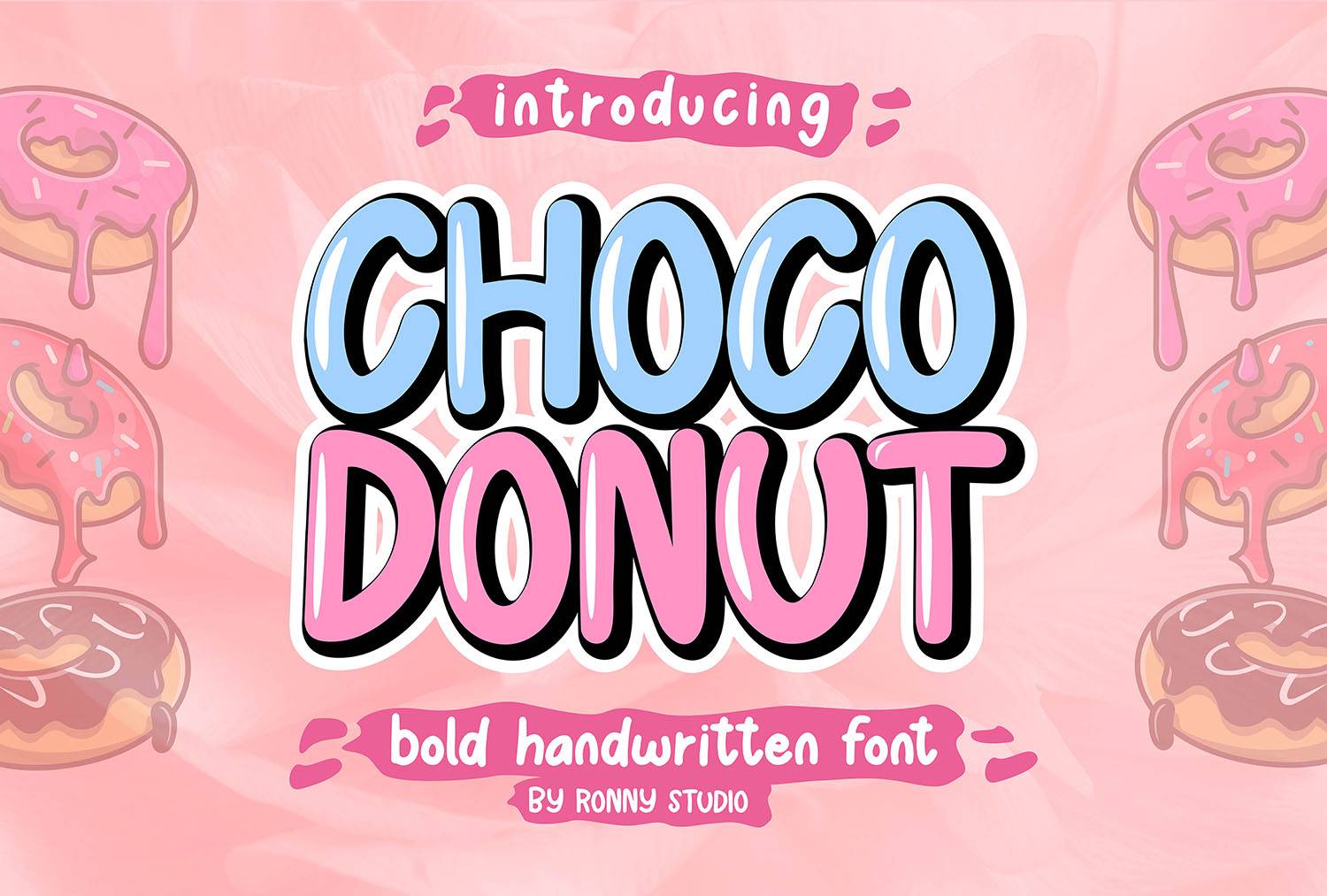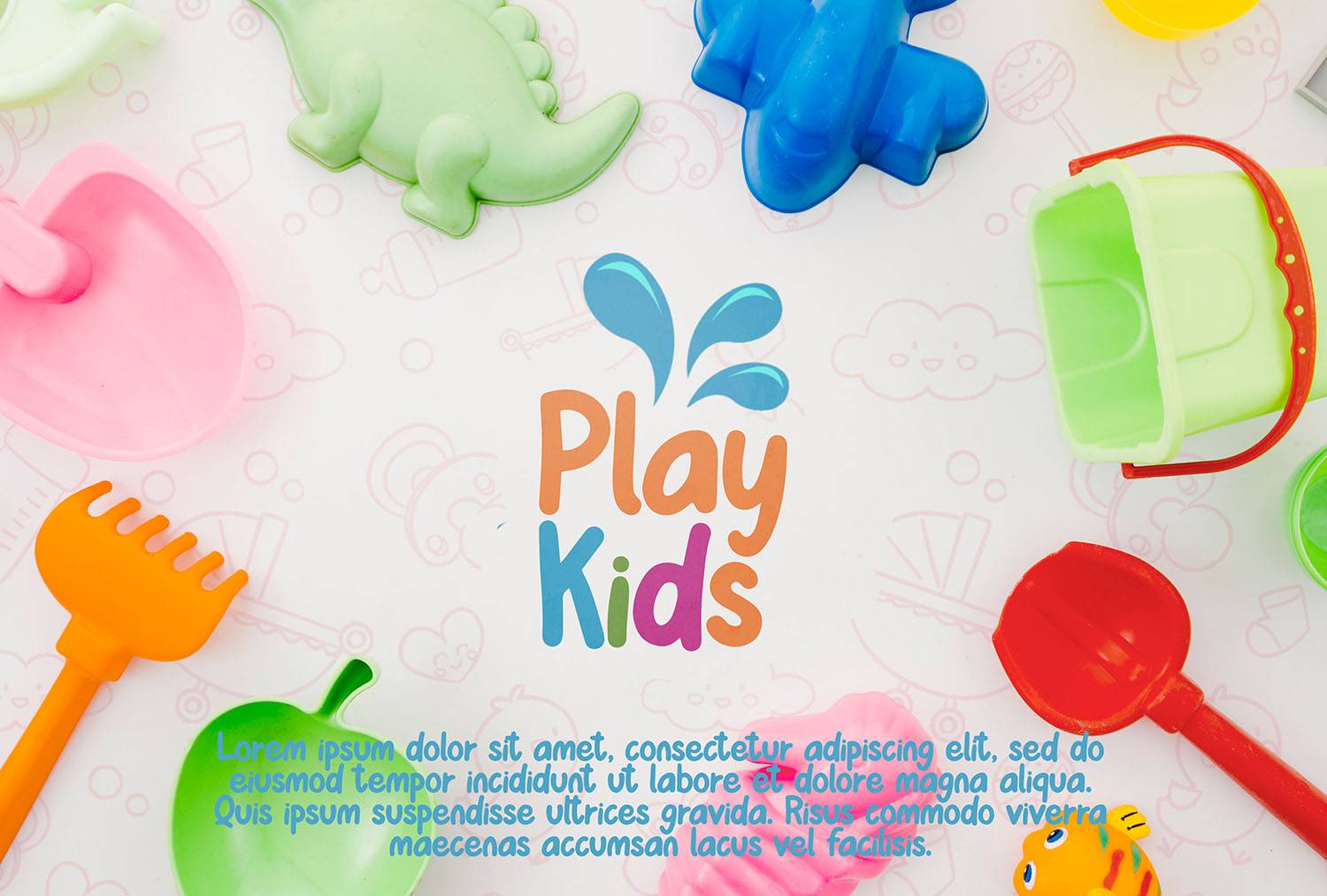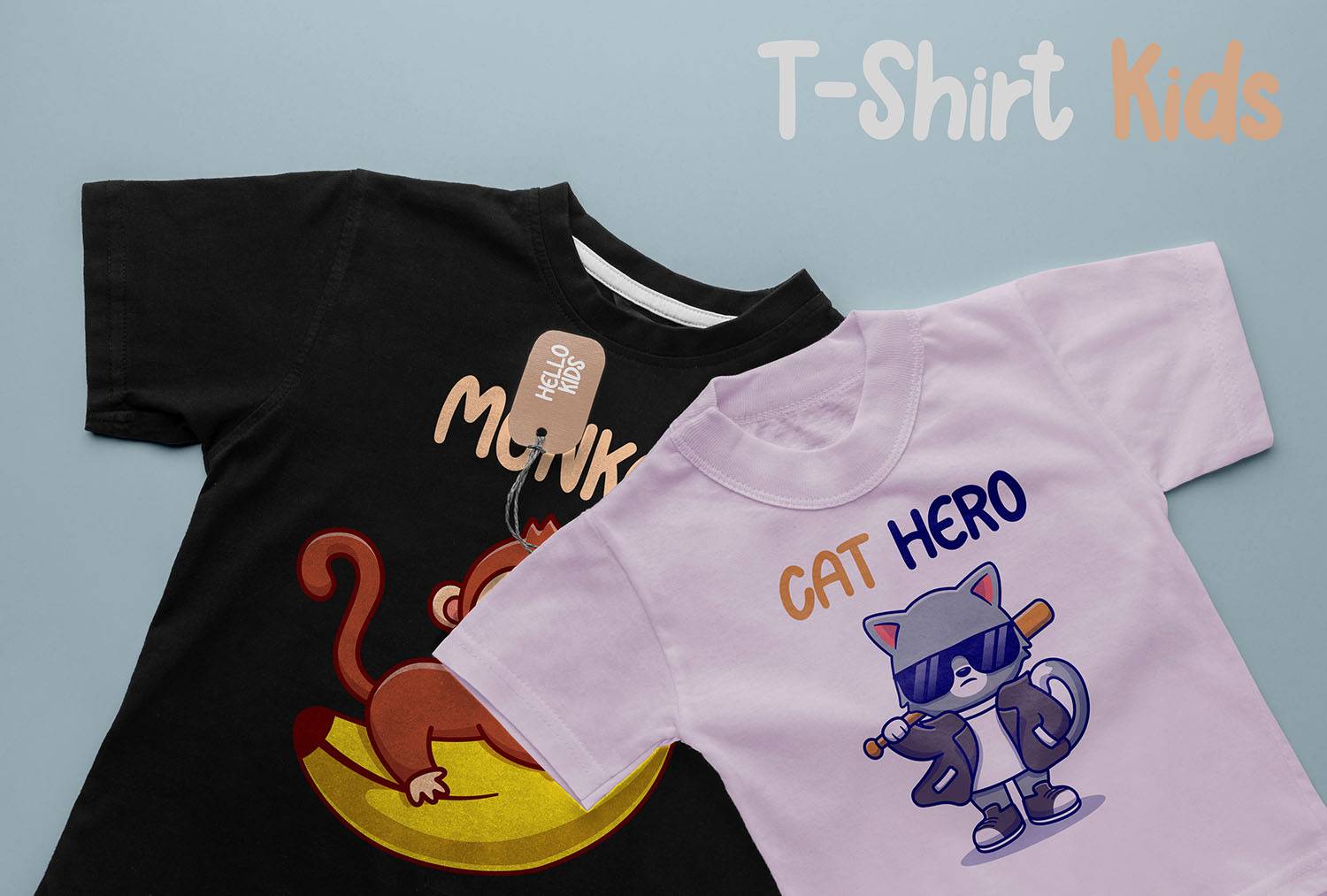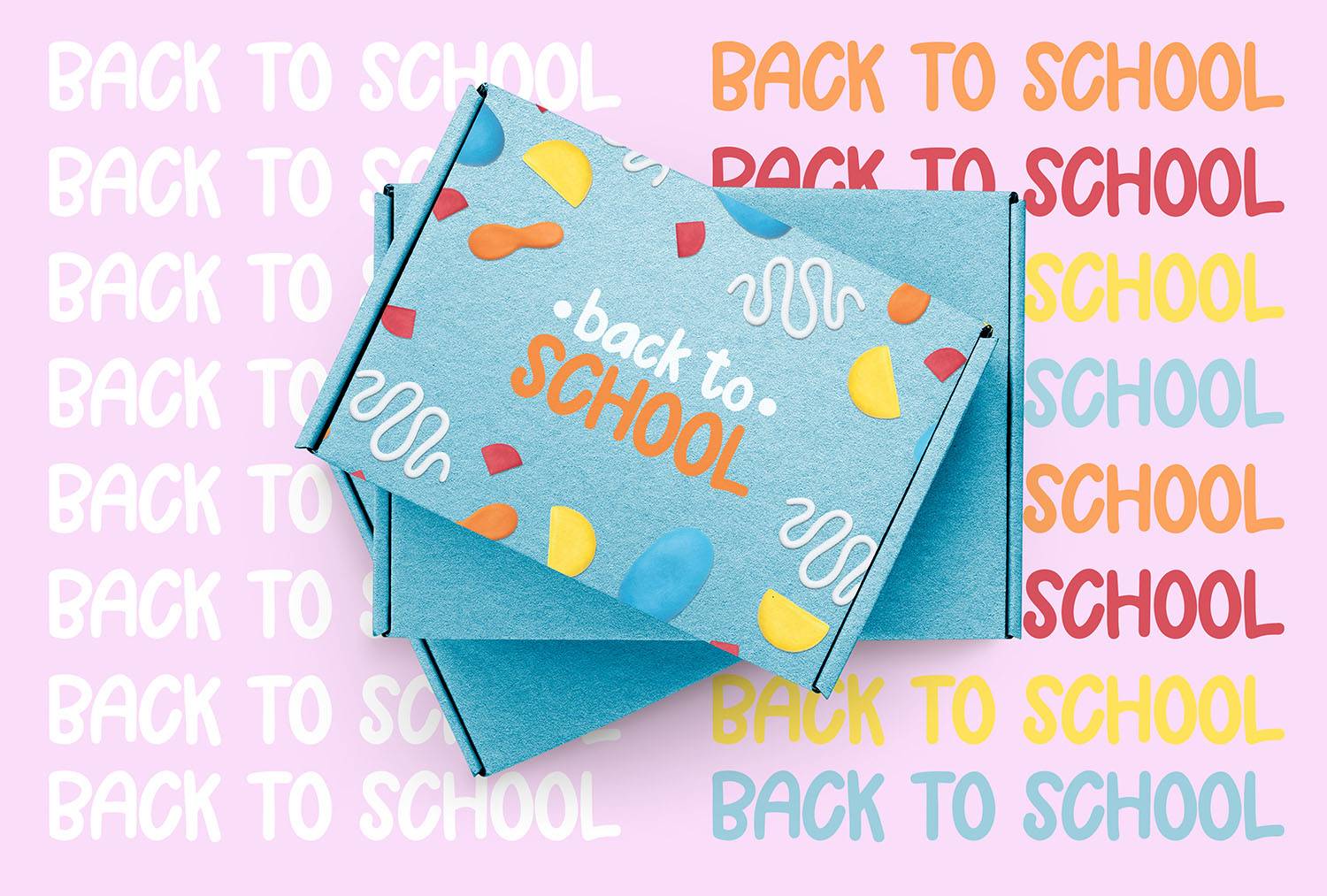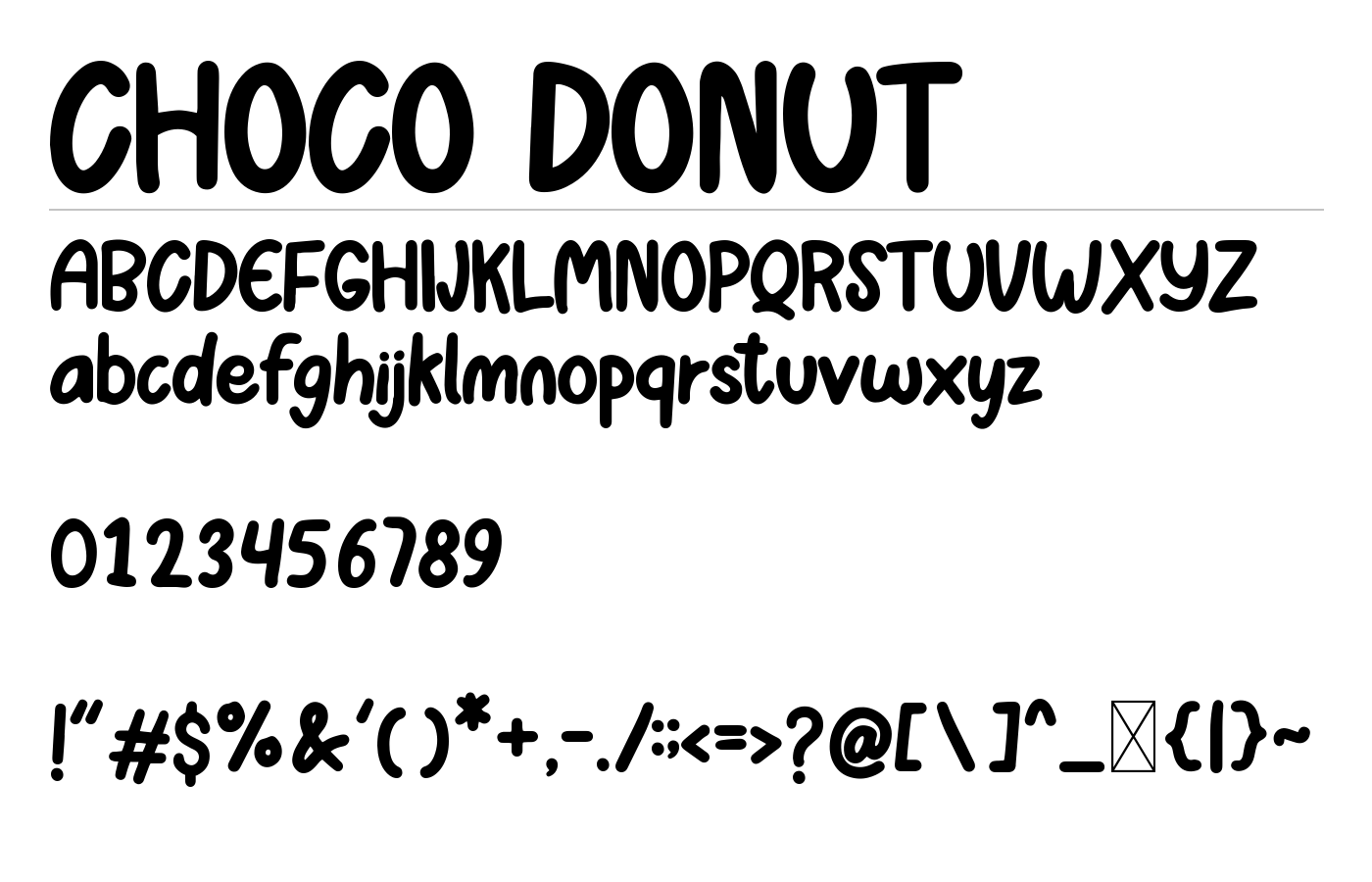
Choco Donut is a playful, rounded sans serif font with a hand-drawn, casual feel. Its smooth, bold strokes and slightly irregular letterforms evoke a friendly and approachable vibe, making it ideal for fun, informal designs like kids’ products, food packaging, and creative branding. The font’s cheerful personality brings warmth and charm to headlines and logos where an inviting and lively impression is desired.
Choco Donut Font
About Choco Donut Font
| Font family | Choco Donut Font |
| Designer | Ronny Rizki Jaya |